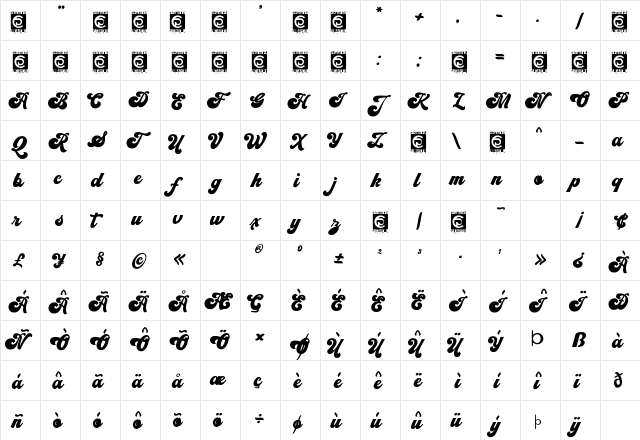
Vintage King Regular
Design Context for Vintage King Typeface
Vintage King wears its vintage influences proudly, with letterforms that recall mid-century signage, classic packaging, and nostalgia-driven design.
Font Pairing: Combine Vintage King with a simple slab or neutral sans — period-accurate companions reinforce the vintage feel without competing for attention.
Pro Tip: Use Vintage King for headlines and pull quotes rather than body copy — its personality is best appreciated in short, focused bursts.